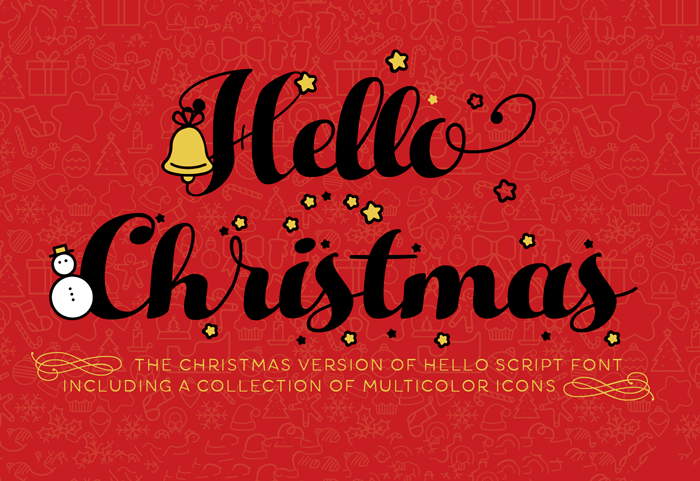
Continue to be a free trial font introduced on zetafonts. Introducing Hello Christmas Script Font! Hello Christmas designed by Pellisco with Cosimo Lorenzo Pancini for Zetafonts. The Hello family features a sans serif companion (Hello Sans) as well as a christmas-themed version (Hello Christmas) with a set of Icons (Hello Christmas Icons), both featuring multilayer color fill. It covers over 40 languages that use the Latin alphabet, with full range of accents and diacritics, and comes with over ten different swashes and two decorative fill typefaces (Hello Script Fill and Hello Script Striped Fill) to use as multilayer colour fonts.